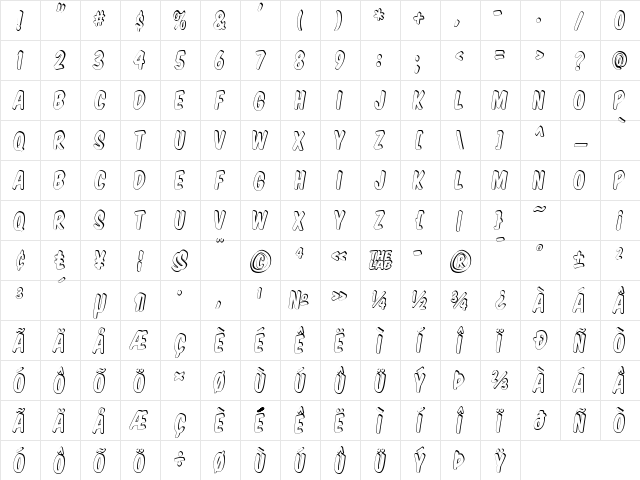
Komika Title - Shadow Regular Free Font
Komika Title - Shadow Regular
Designer: WolfBainX & Apostrophe
Design Context for Komika Title - Shadow
Komika Title - Shadow is built around its visual character rather than neutral utility - its distinctive forms are designed to make an impression at display sizes.
Font Pairing: Pair with a clean neutral sans-serif for body copy to let Komika Title - Shadow's character lead without overwhelming the composition.
Pro Tip: Use Komika Title - Shadow exclusively at display sizes - it was designed to be seen, not read at length. Let a neutral companion handle body copy.